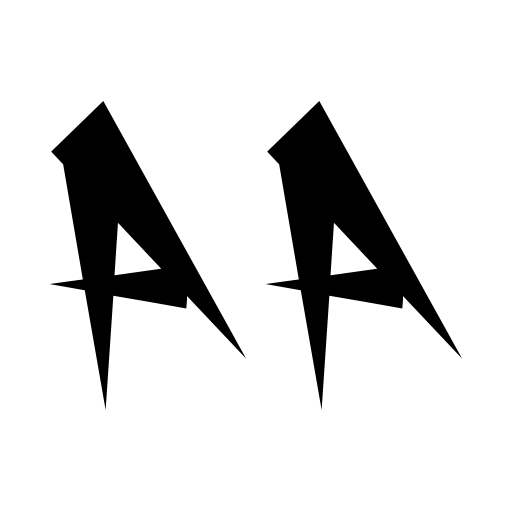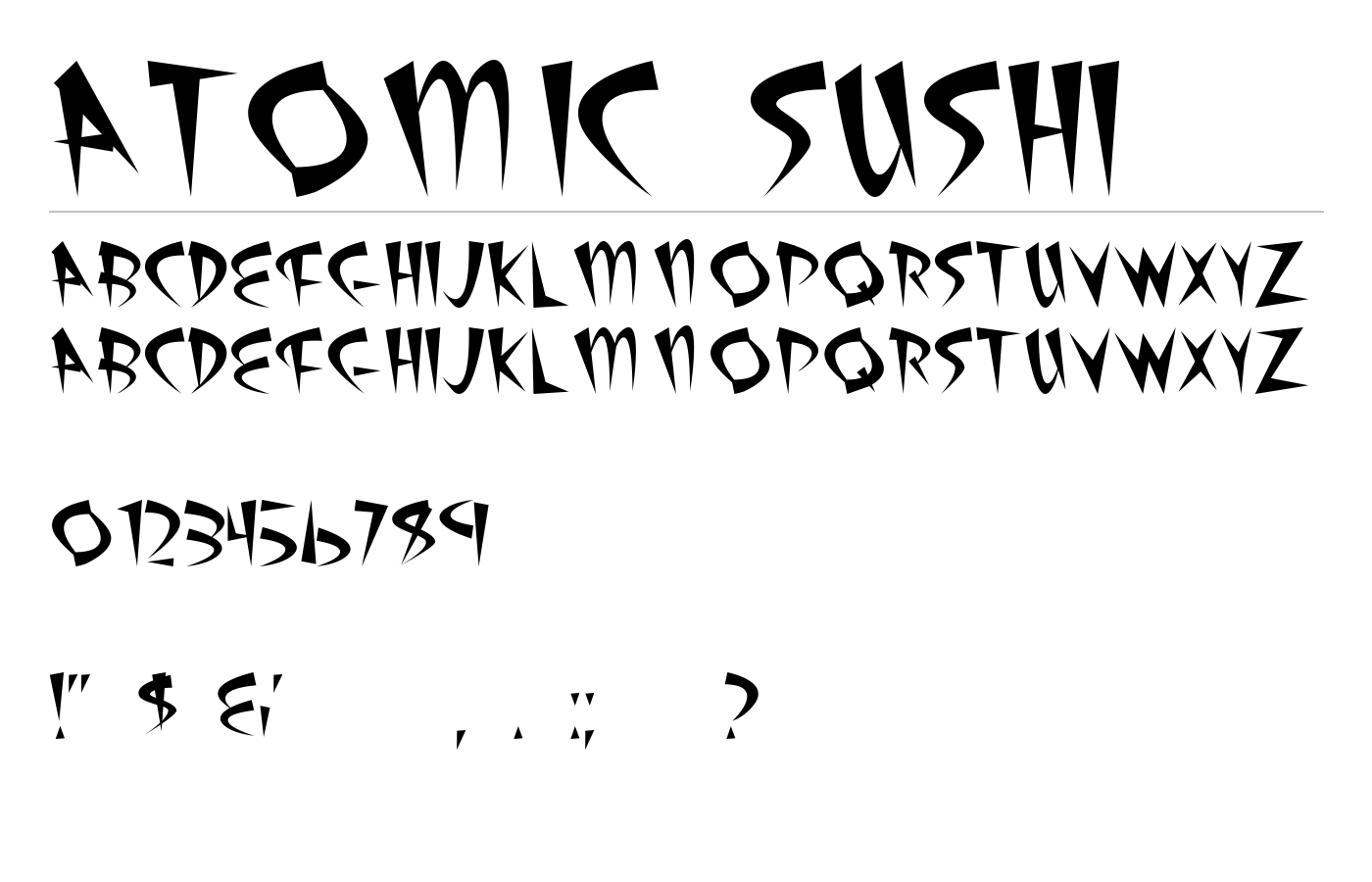
Atomic Sushi is a bold, jagged display font with a unique, edgy style that combines sharp, spiky strokes and an irregular geometric form. Its narrow width and high contrast between thick and thin elements give it a dynamic, energetic feel, making it perfect for eye-catching headlines, posters, and branding that aim to stand out with a fierce, modern vibe. This font works well in creative or alternative designs where a rebellious, playful personality is desired.
Atomic Sushi Font
About Atomic Sushi Font